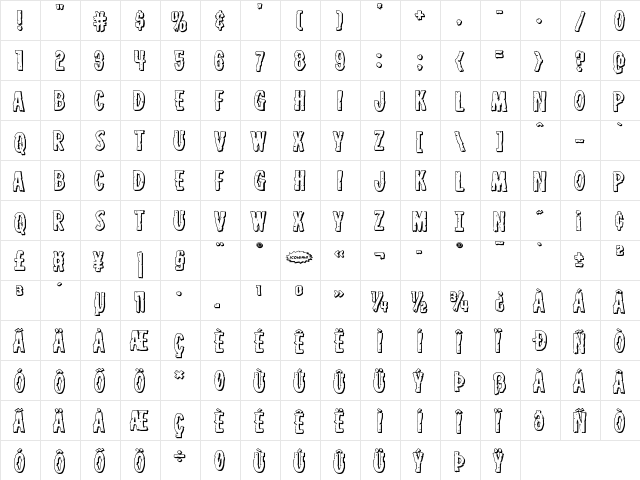
Carnival Corpse Shadow Shadow Expanded
Design Context for Carnival Corpse Shadow Shadow Typeface
Carnival Corpse Shadow Shadow brings ornamental detail and strong personality to headlines and identities, where visual impact matters more than quiet functionality.
Font Pairing: Pair with a clean neutral sans-serif for body copy to let Carnival Corpse Shadow Shadow's character lead without overwhelming the composition.
Pro Tip: Use Carnival Corpse Shadow Shadow exclusively at display sizes — it was designed to be seen, not read at length. Let a neutral companion handle body copy.